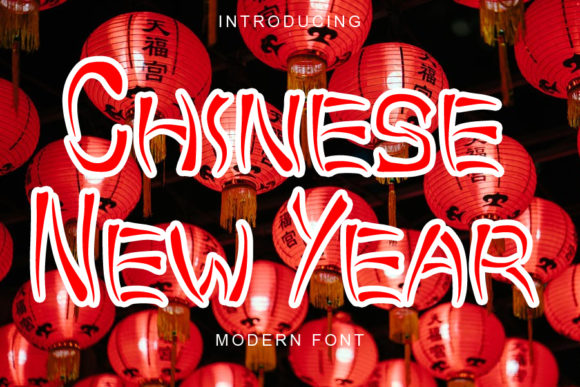
Embrace the joyous spirit of Chinese New Year with our exclusive Chinese New Year Font, a vibrant display font that exudes fun, boldness, and authenticity. Designed by the renowned ABBAsalam, this font is a true masterpiece that will elevate your creations to new heights.
Step into a world of visual delight as you witness the captivating dance of characters in this font. Its simple yet striking design creates an immediate impact, making your words leap off the page and capture the attention of all who behold them. Chinese New Year Font possesses an innate ability to transform ordinary text into captivating expressions, adding a touch of personality and charm to every project.
Unleash your creativity and let your imagination run wild as you explore the endless possibilities that await you with this remarkable font. Whether you're crafting stunning logos, eye-catching posters, or simply adding a touch of festive flair to your social media posts, Chinese New Year Font is the perfect choice. Its versatility knows no bounds, allowing you to effortlessly adapt it to a wide range of projects and design styles.
Immerse yourself in the rich cultural heritage of China during the Spring Festival as you type with this font. Each stroke, each curve, and each line embodies the spirit of celebration, prosperity, and joy. Let your designs reflect the vibrancy and excitement of this special time of year, captivating your audience with a visual symphony that resonates with tradition and modernity.
The Chinese New Year Font is not just a font; it's an experience. It's a gateway to a world where creativity flourishes, where individuality shines, and where your designs leave a lasting impression. Embrace the magic of this font and watch as your words transform into works of art, ready to captivate and inspire.